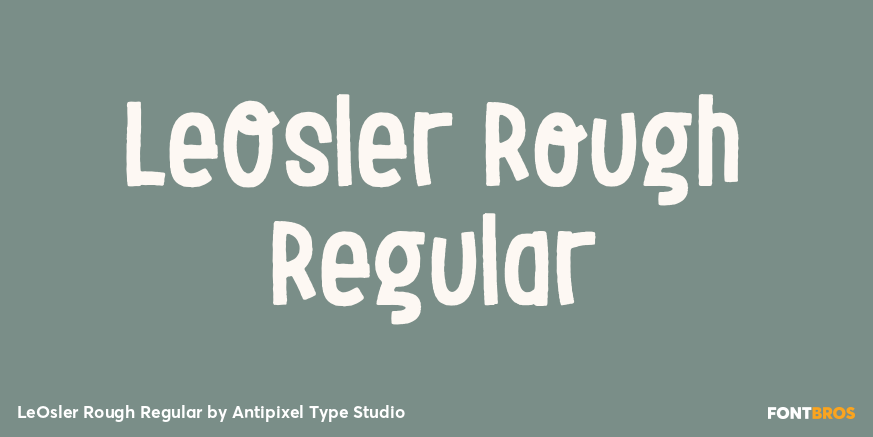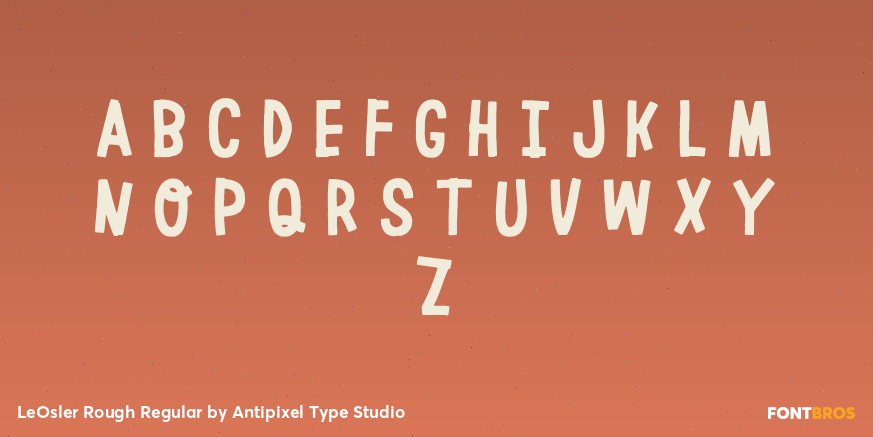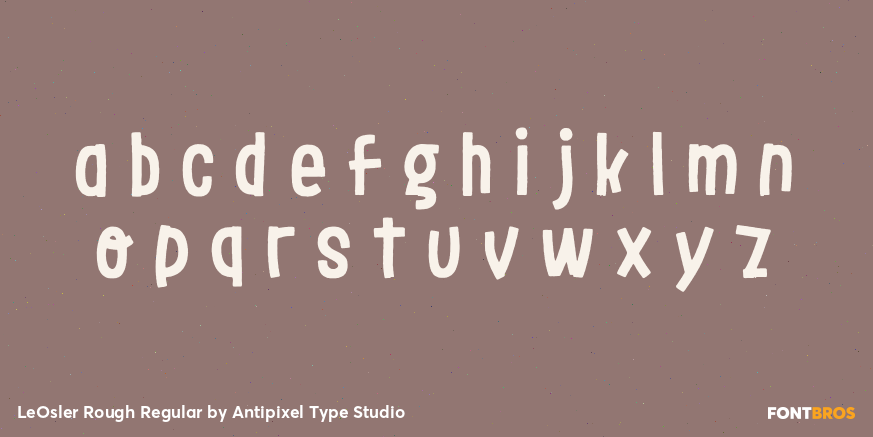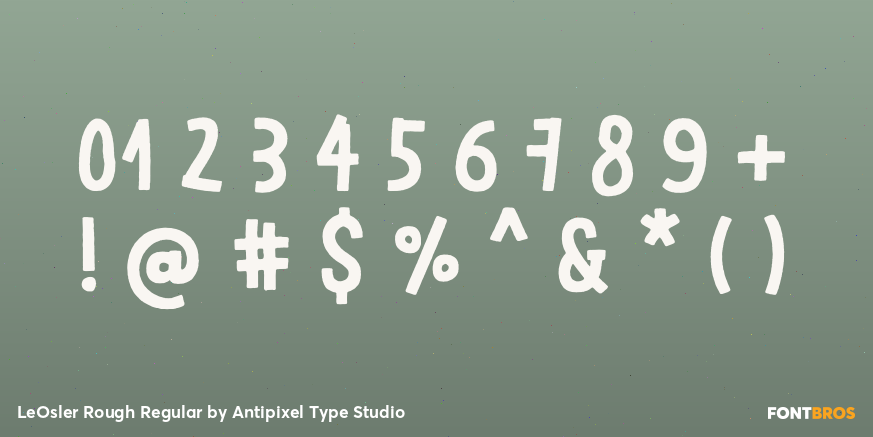
LeOsler Rough Regular
Font Style by Antipixel Type Studio
LeOsler Rough Regular is a playful and spirited handwritten font with an illustrative imprint. LeOsler has a slightly condensed structure, a large x-height, aired counters, quirky character design, and a glyph coverage that ensures extended language support with Latin, Greek, and Cyrillic scripts.
LeOsler has three alternating alphabets that slightly differ from one another. These sequentially alternate to avoid the same letterforms or textures appearing next to each other. The Contextual Alternates feature is available for Latin, Greek, and Cyrillic.
• Uppercase & lowercase, numbers, punctuation, ligatures, arrows, emojis, case-sensitive characters, monetary and mathematical symbols, and more!
• Open-Type features: Contextual Alternates, Stylistic Alternates, Standard Ligatures, Subscript, Scientific Inferiors, Superscript, Numerator, Denominator, Fractions, Ordinals